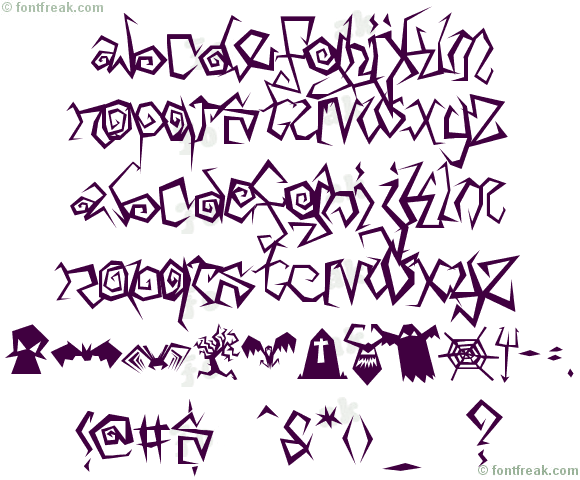
Arachnids
About Arachnids
Arachnids by Mans Greback is an eye-catching display font that falls into the decorative category. With its unique, playful design, this font captures attention with bold strokes and an irregular structure, reminiscent of spider webs and their intricate patterns. The letters exhibit a dynamic stroke weight, combining both thick and thin lines that create a sense of movement and whimsy. The spacing between characters is tight, enhancing the font's visual impact, while the decorative elements evoke a sense of creativity and fun.
This font is ideal for a variety of specific use cases. It can be particularly effective for Halloween-themed designs, such as spooky invitations, party flyers, or event posters. Additionally, it shines in children's book covers, where its whimsical nature can attract young readers. Arachnids is also suitable for creative branding, such as logos for artisanal shops or quirky cafes, where a distinctive visual identity is essential. Graphic designers and content creators will find this font valuable for social media graphics, helping to convey a playful and imaginative message.
Overall, Arachnids stands out for its playful design and ability to evoke a sense of creativity and fun. Its unique character shapes and bold strokes make it a perfect choice for anyone looking to add a touch of whimsy to their work, ensuring that projects will not only capture attention but also leave a lasting impression.